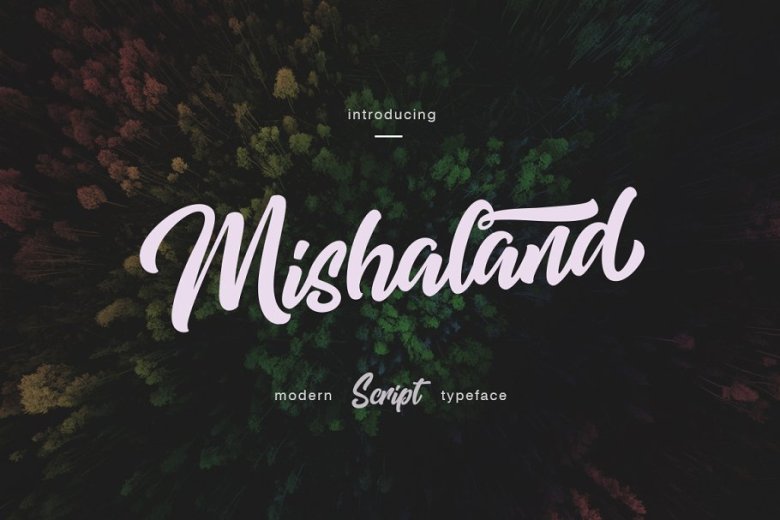
Mishaland Typeface
Hi designer. This is a beautifully classic script. I wish all of you will enjoyed this font. Introducing Mishaland Font. Mishaland – script lettering and display type.. Simple and easy to create awesome lettering, just type your words and then you will immediately see the great results. Mishaland script is modern handlettering font, every single letters have been carefully crafted to make your text looks beautiful. With modern style this font will perfect for many different project ex: quotes, blog header, poster, wedding, branding, logo, fashion, apparel, letter, invitation, stationery, etc.